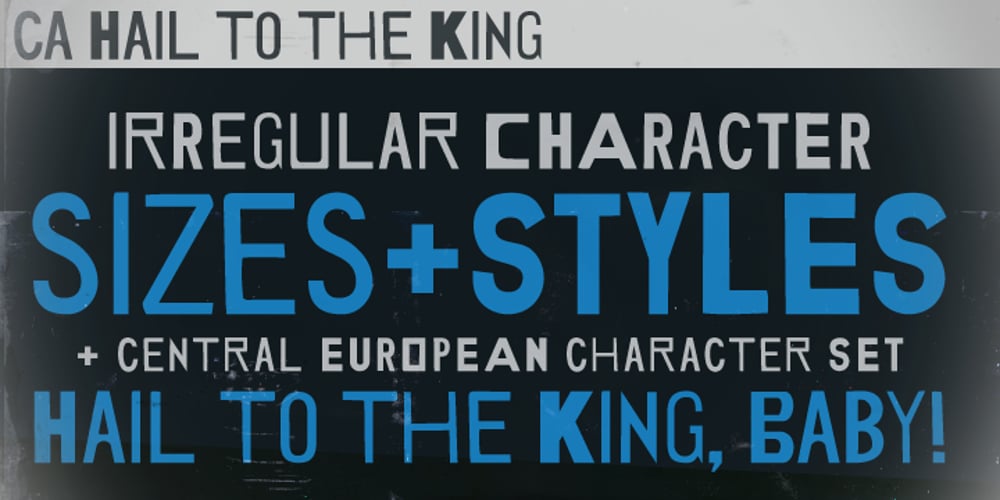
CA Hail To The King Font Family was designed by Thomas Schostok and published by Cape Arcona Type Foundry. CA Hail To The King contains 1 styles and family package options. Created exclusively for an exhibition catalog for the exhibition ‘Hail to the King, Baby!’. CA Hail to the King is based upon different letters taken from handmade signs from all over the world. You will find a lot of unexpected specials: irregular character sizes and styles (uppercase characters are bold; lowercase characters are in regular style) everything that makes CA Hail to the King so varied and unpredictable. In addition to west European diacritics an extensive central European character set were added including some very nice stylistic alternates.